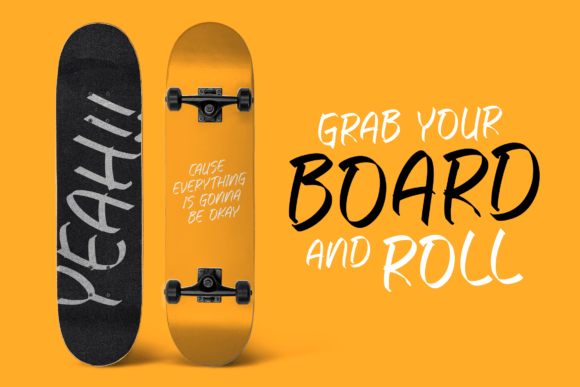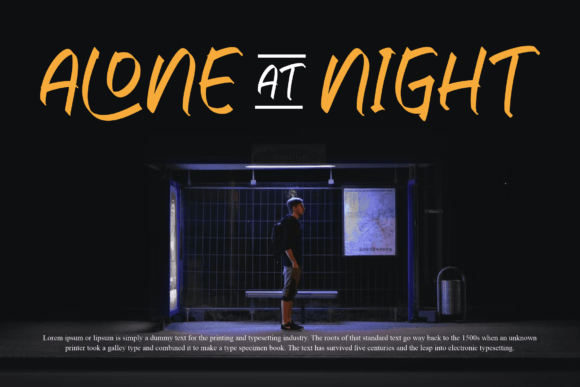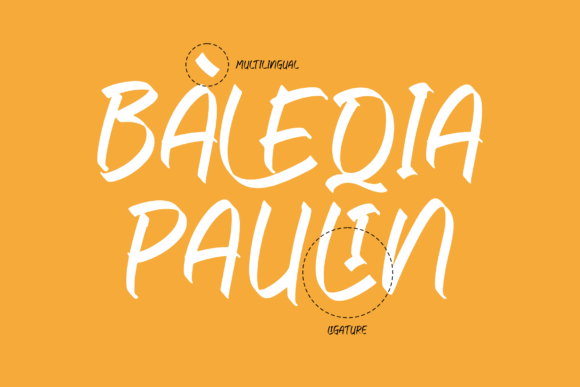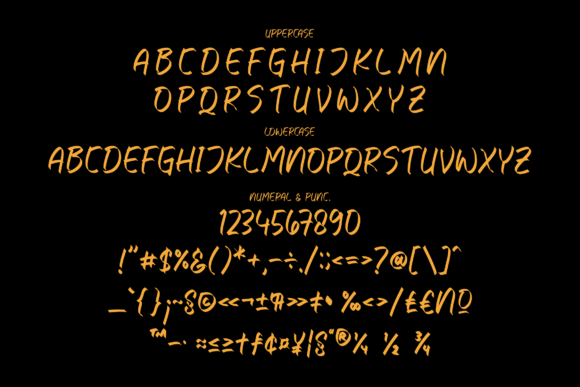
About Baleqia Paulin Font
Baleqia Paulin is a handwritten brush font. Add it confidently to your projects and you will be amazed by the outcome generated!